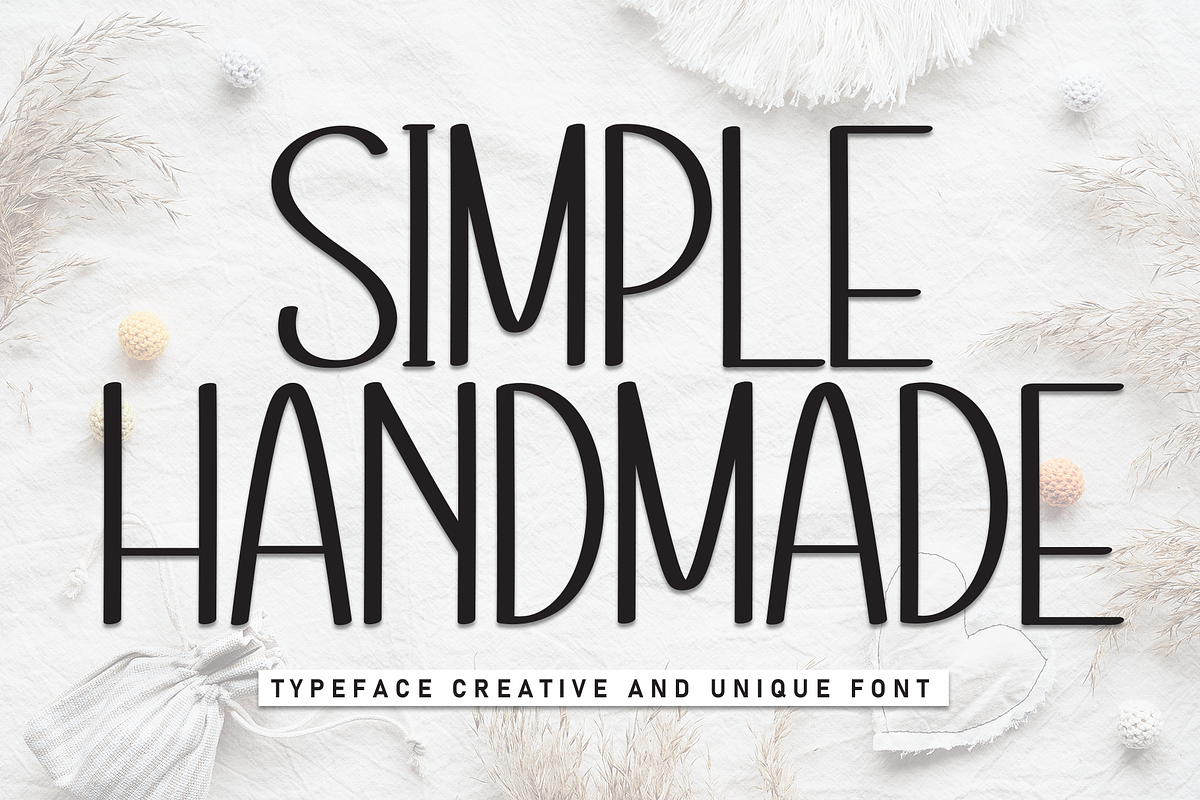
Simple Handmade Script Font Free Download
Simple Handmade Script Font Free Download is a charming and casual handwritten font that brings a personal and authentic touch to your designs. With its smooth curves and relaxed letterforms, this font is perfect for creating logos, invitations, social media graphics, greeting cards, and any project that needs a warm, friendly feel.
Its natural, hand-drawn style makes it ideal for projects that require a personal touch, while still maintaining a professional look. Whether you’re designing for a creative brand, a wedding event, or a casual project, Simple Handmade Script Font Free Download adds authenticity and charm to your typography.